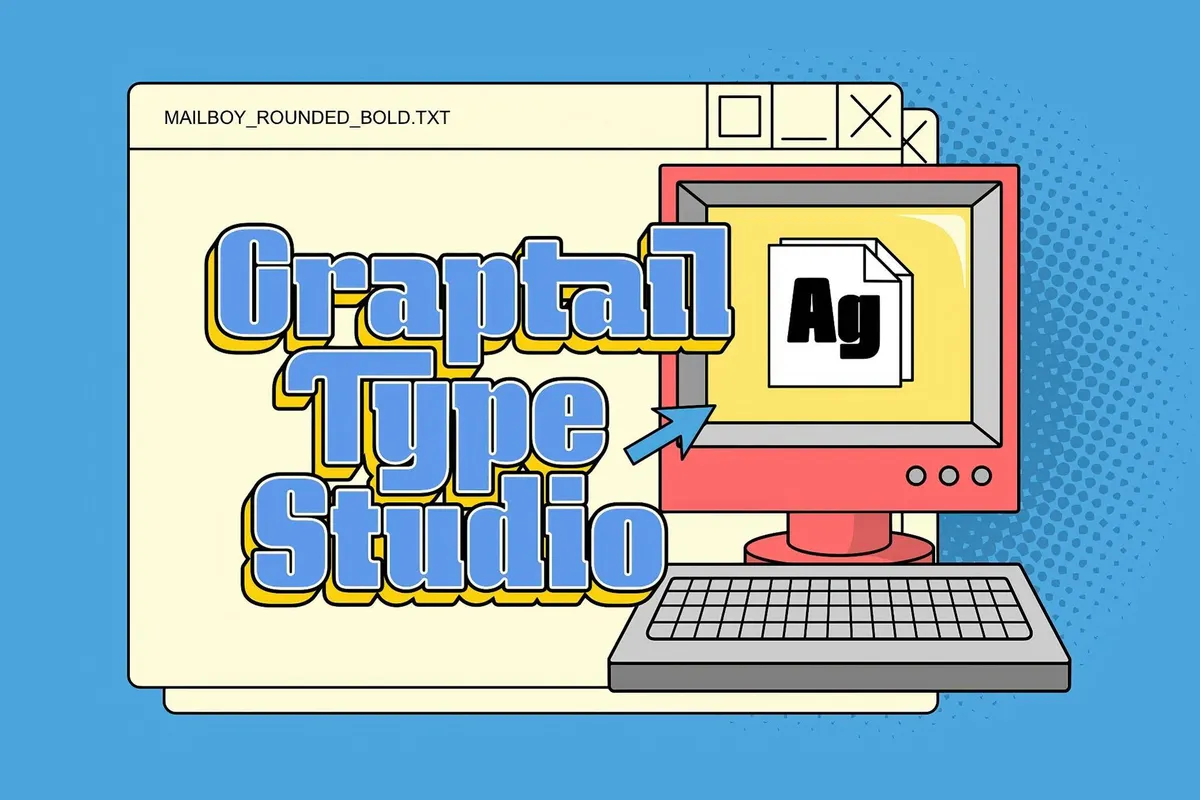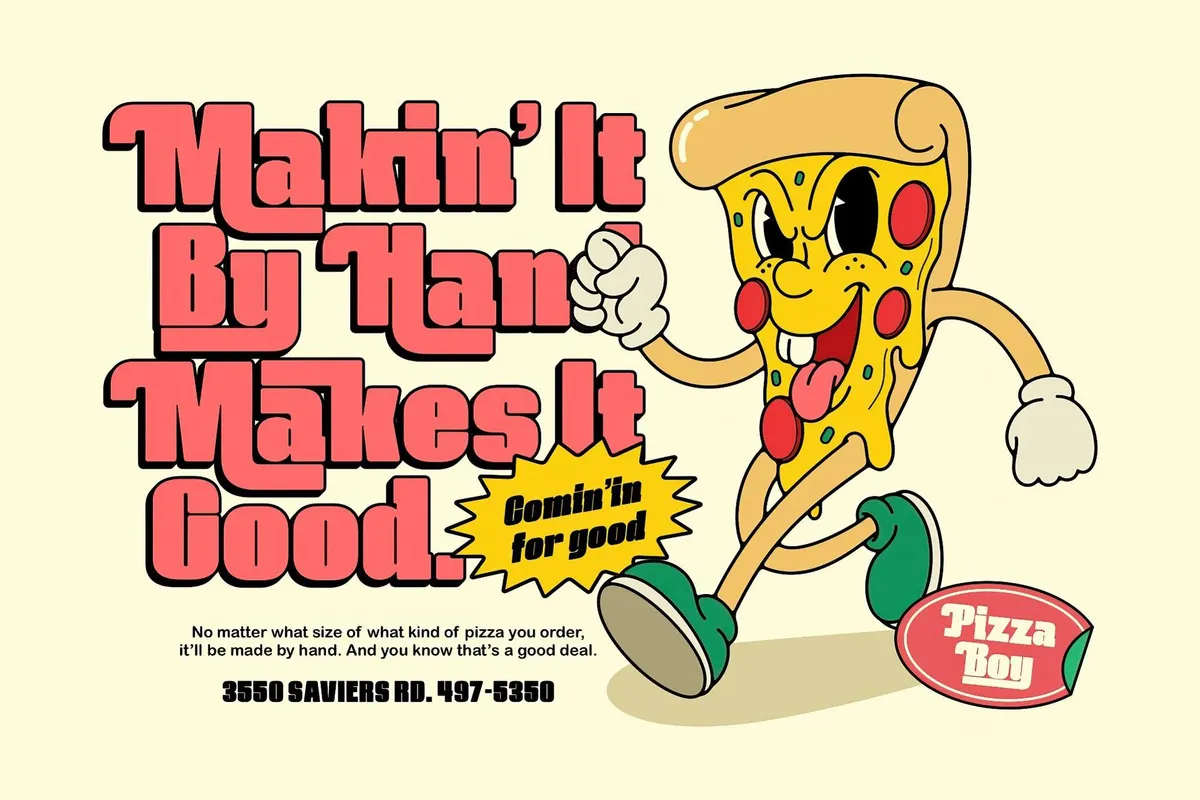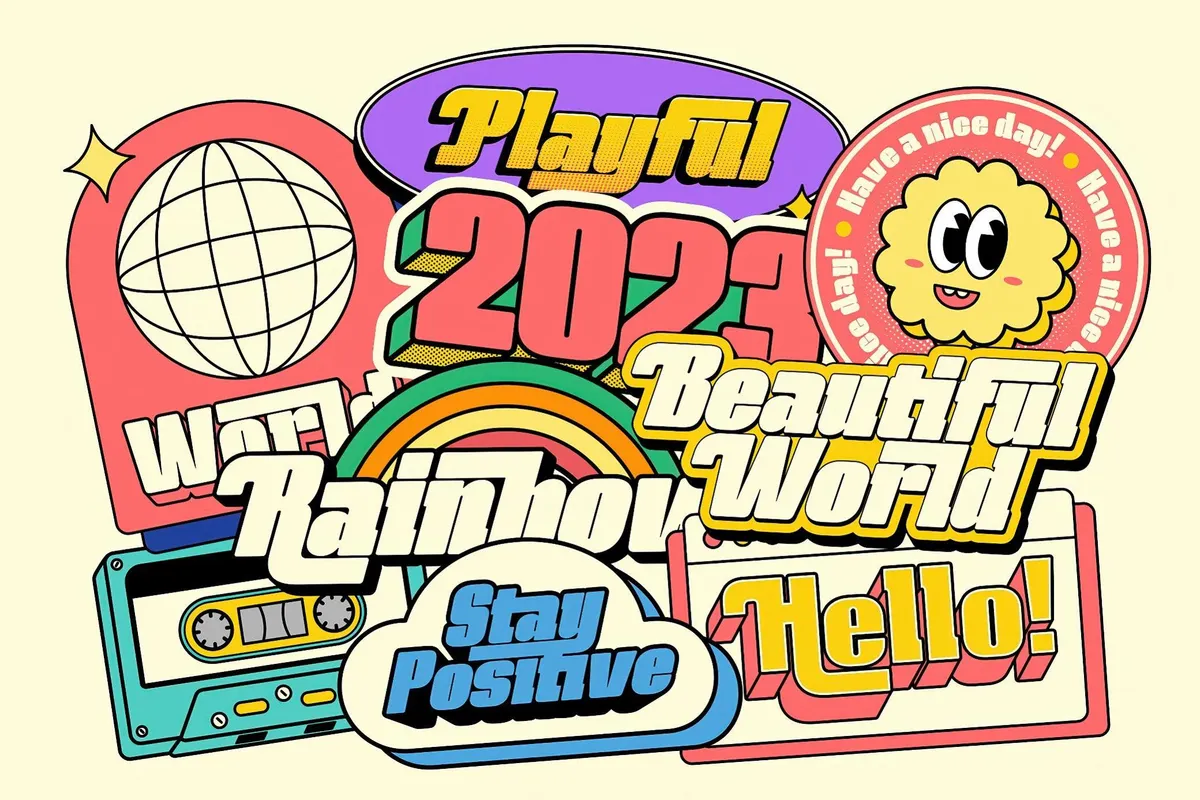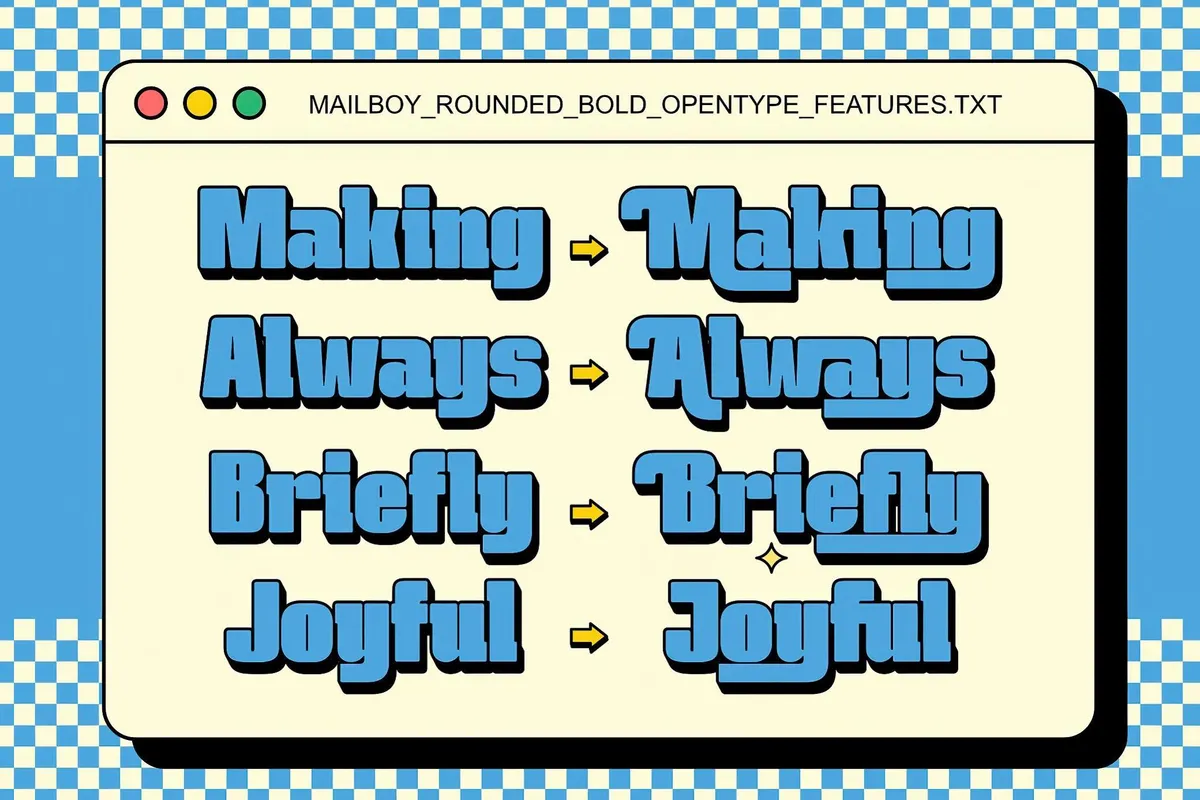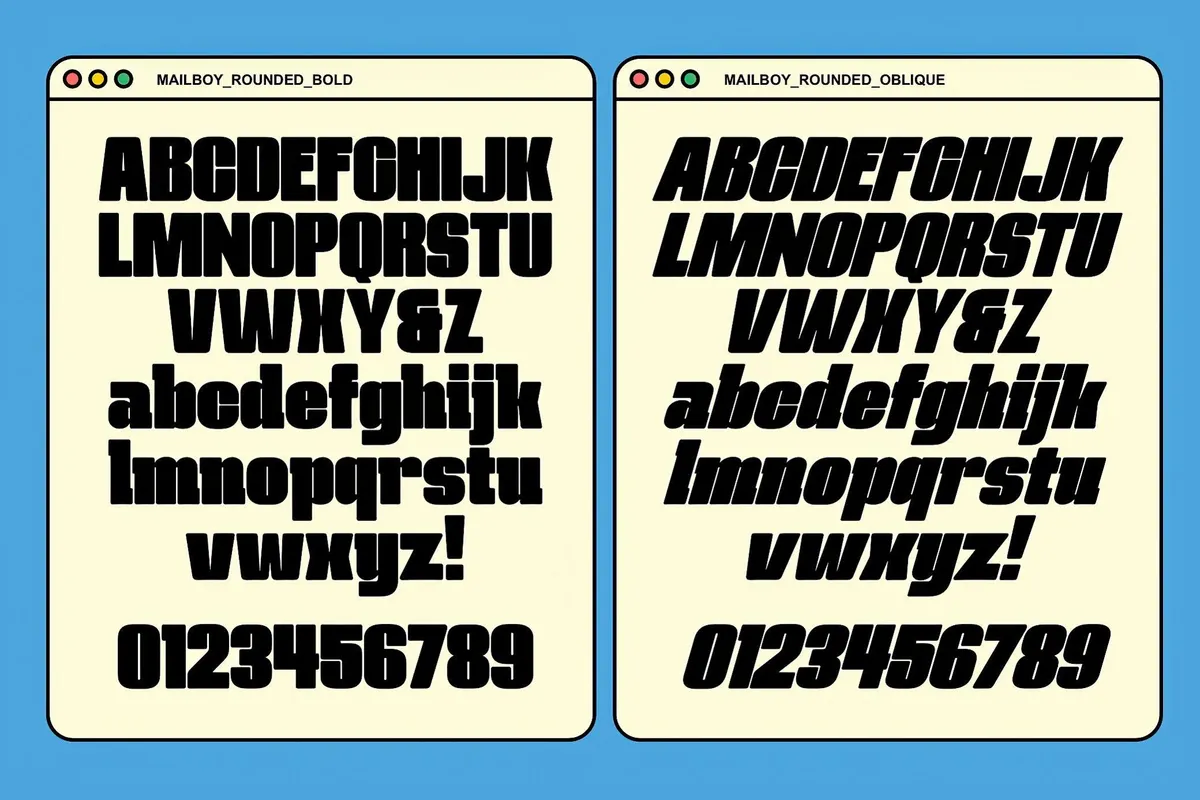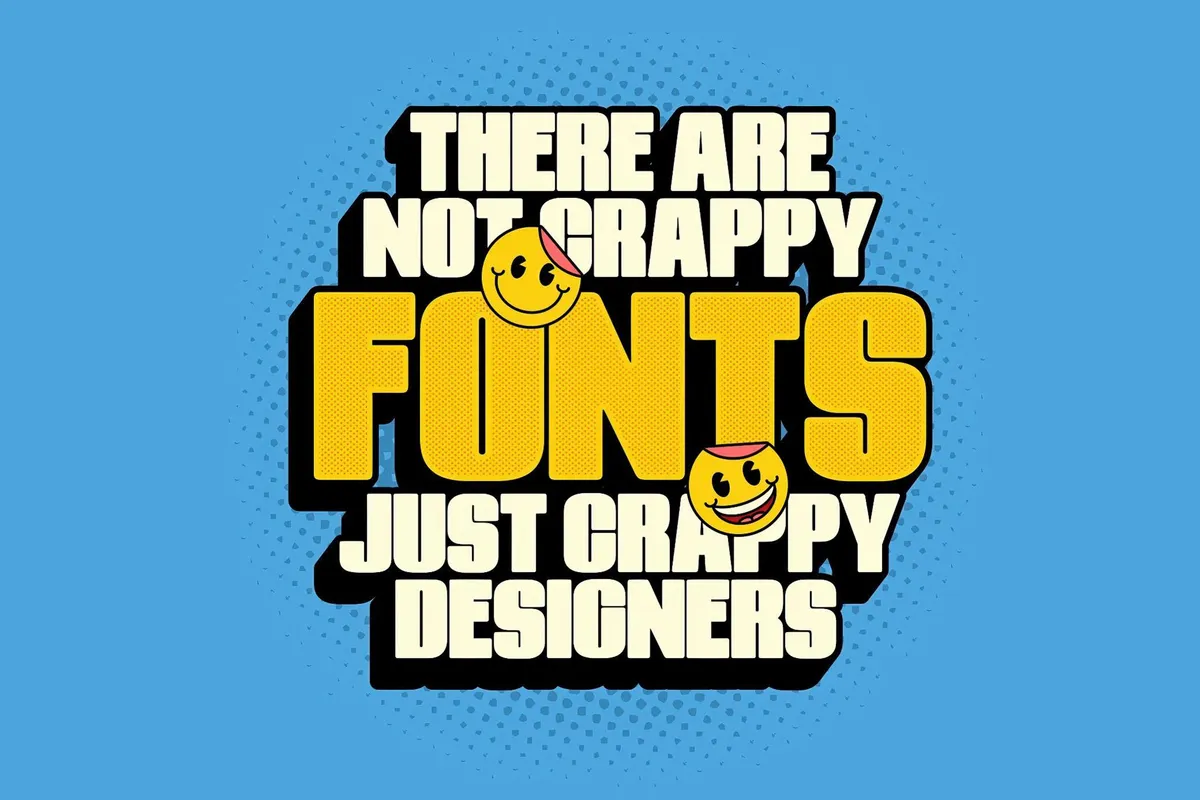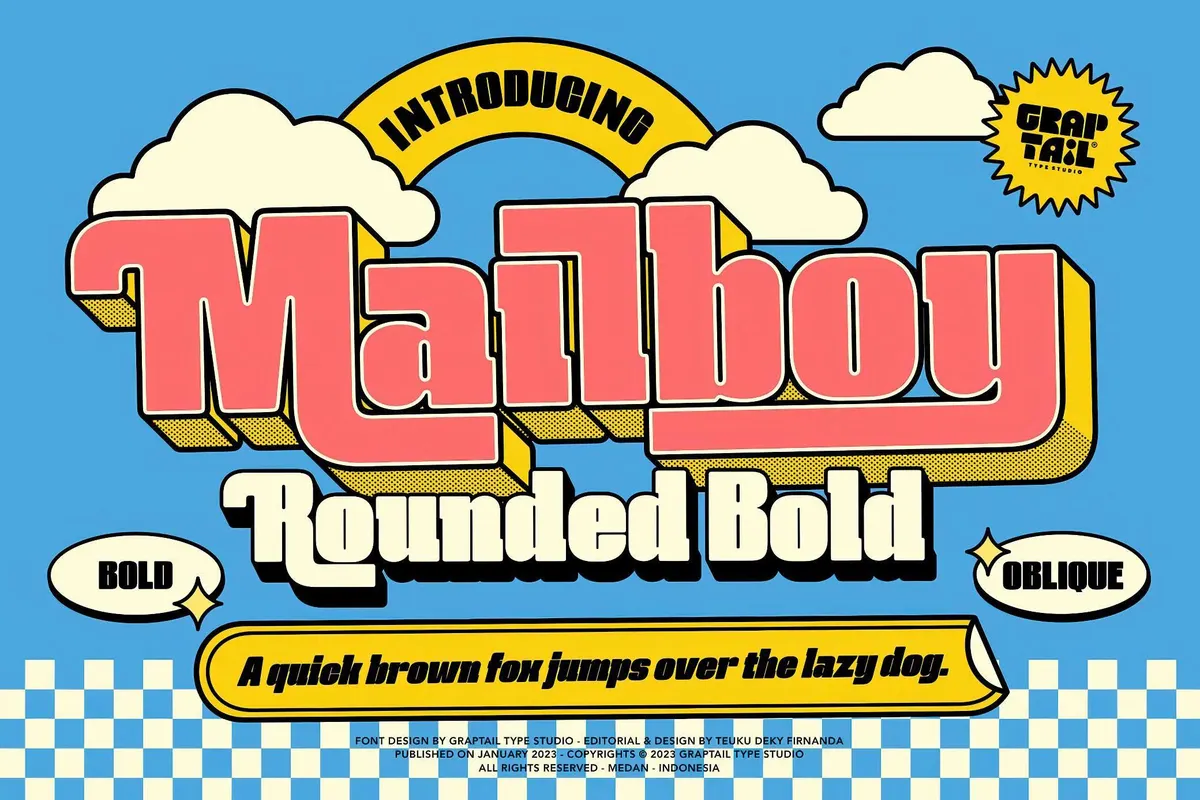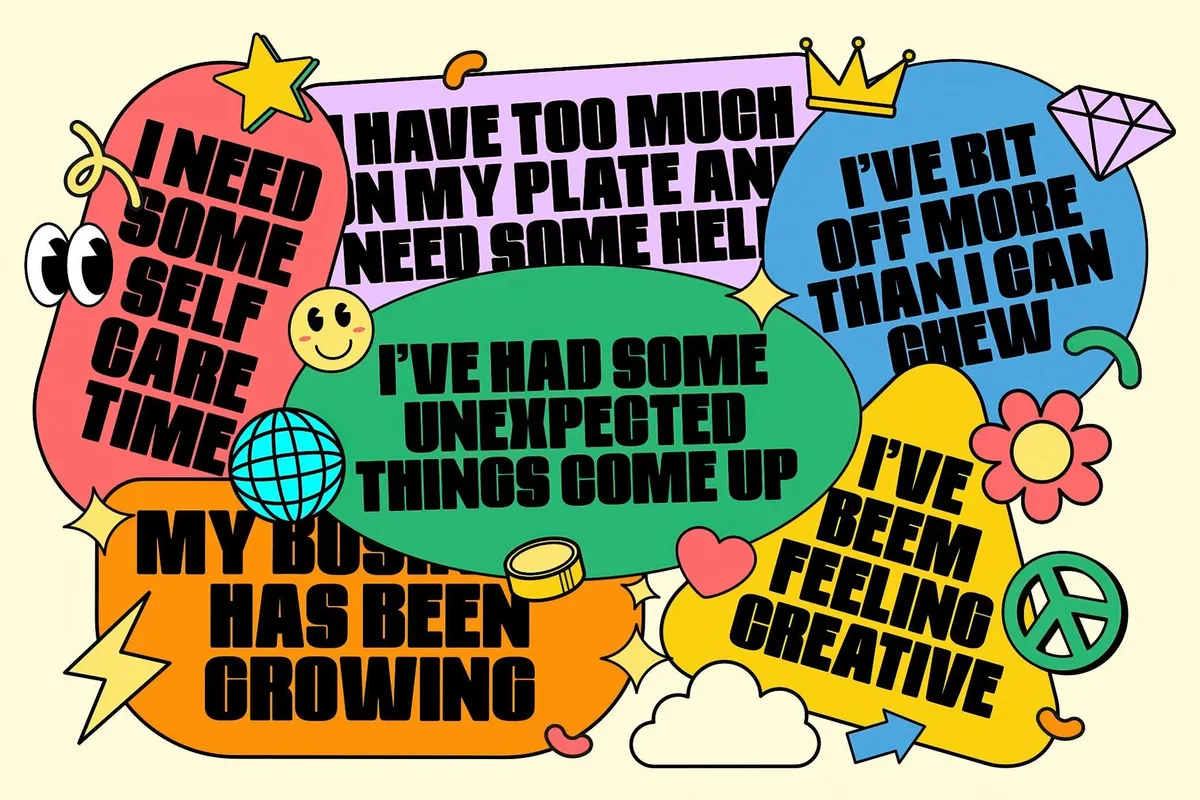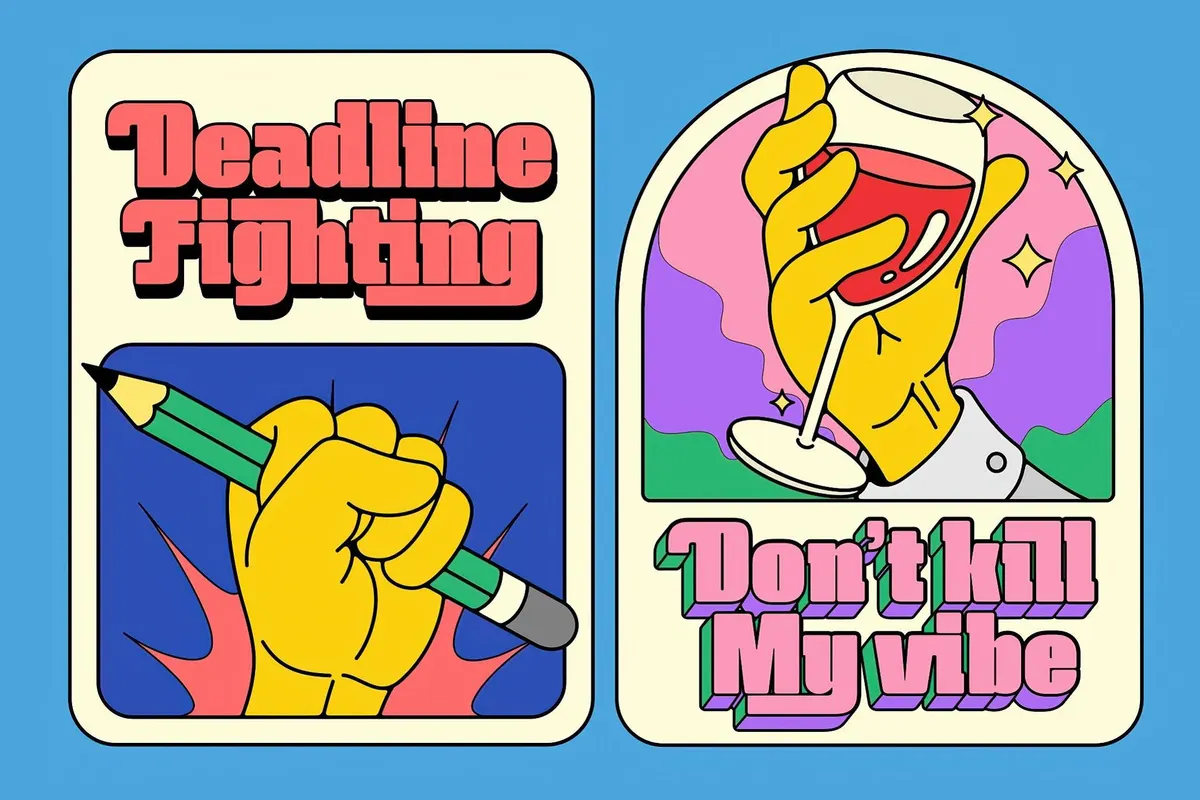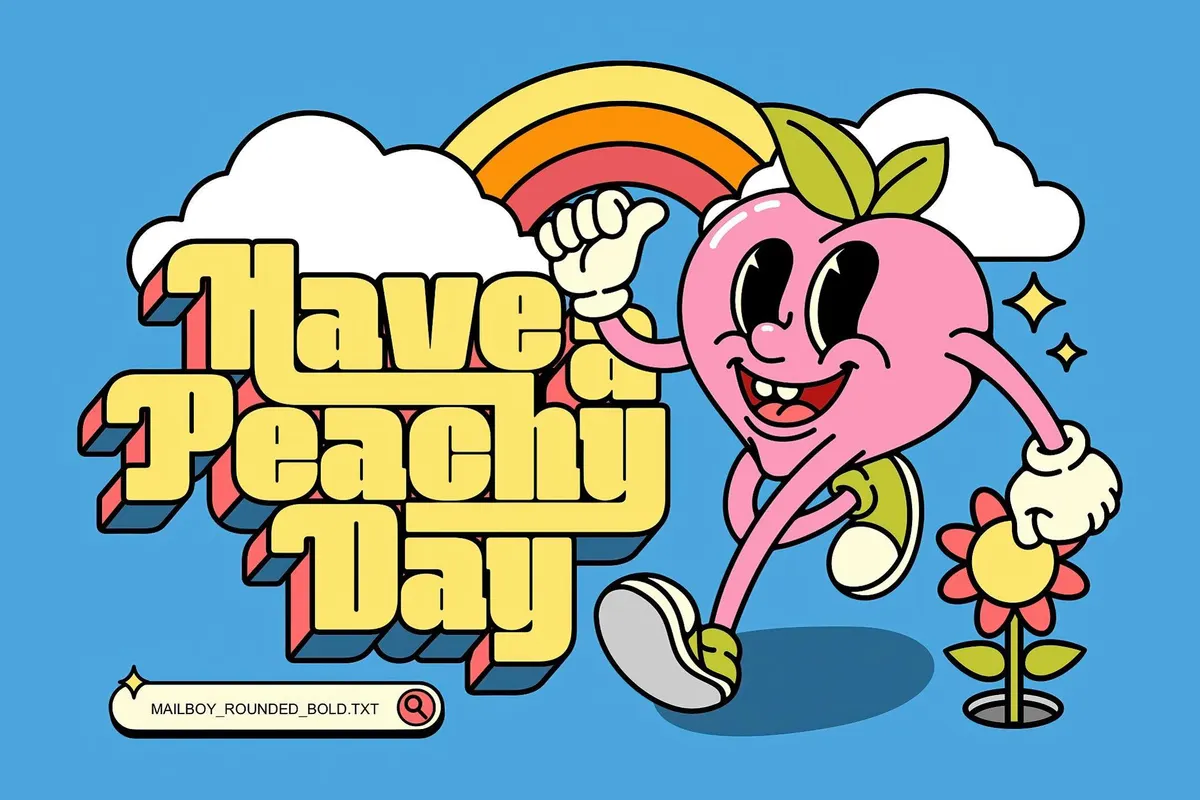
Mailboy — Rounded Bold Font
Mailboy shares characteristics with typography from the 1970s and 1980s, particularly in irregular strokes and playful, exaggerated curves. It reflects the handmade, illustrative qualities often found in posters and advertisements from the mid-20th century, enabling you to onboard solid vintage visuals yourself. There are two font styles, Bold and Oblique, with alternates, each providing a complete character set. Mailboy is versatile and highly emotional — like most fonts in the 1980s used to be, allowing you to mix them with structured layouts, e.g., greeting cards, children's books, or poster art.